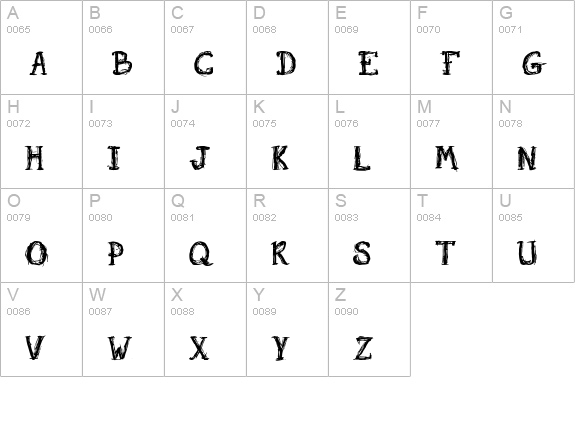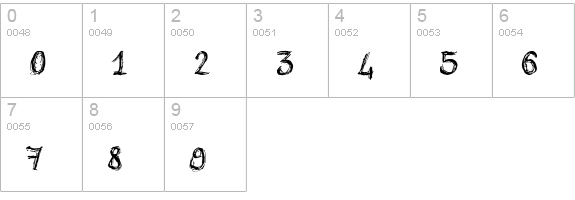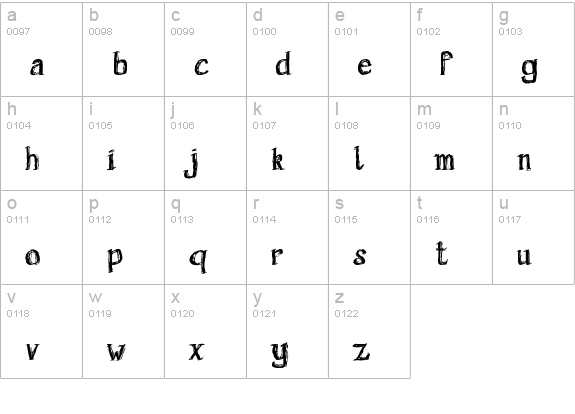
Holyrose Sale Font Details
Introducing Holyrose Sale font, a stunning and elegant typeface that exudes sophistication and charm. This versatile font is perfect for a wide range of design projects, from branding to packaging to social media graphics. With its unique and stylish look, Holyrose Sale font is sure to make your designs stand out and captivate your audience. What's even better is that Holyrose Sale font is available for free download at FontsMarket.com. Yes, you heard that right - you can get your hands on this exquisite font without spending a dime. Don't miss out on the opportunity to enhance your designs with this beautiful typeface. Download Holyrose Sale font today and elevate your creative projects to new heights.